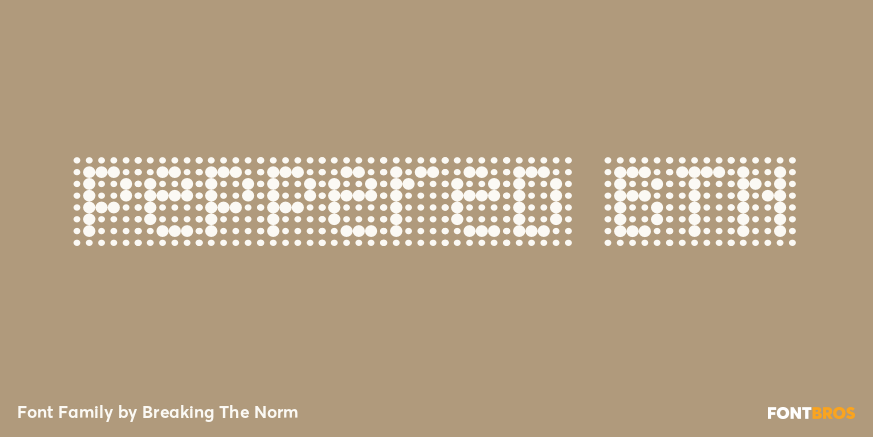
Peppered BTN
About Peppered BTN
Peppered is an ornate and overloaded dot matrix typestyle complete with positive and negative dot matrixes as well as an ornament variant. Its blanketed dot-matrix style can create interesting bands of tint, much like a halftone when typed at various…